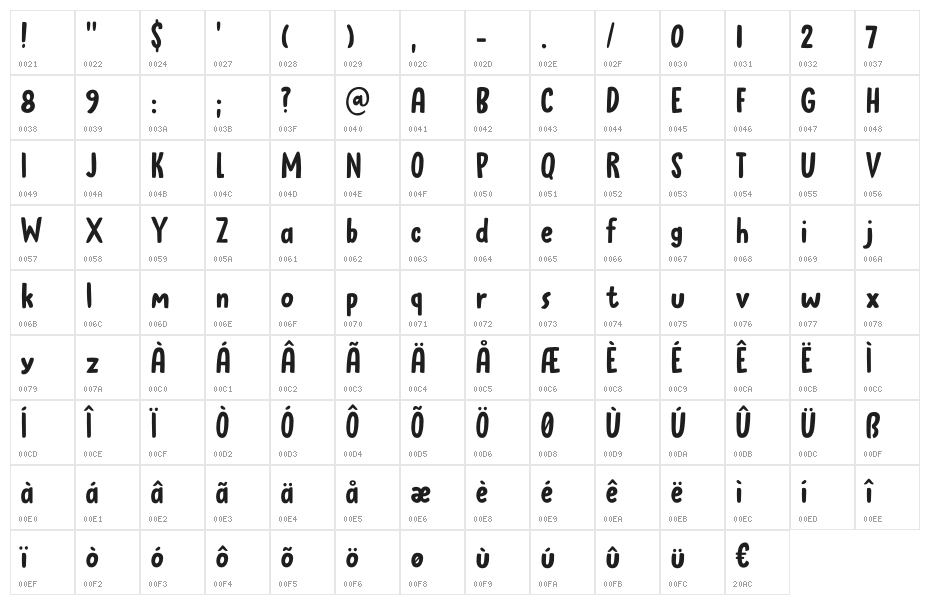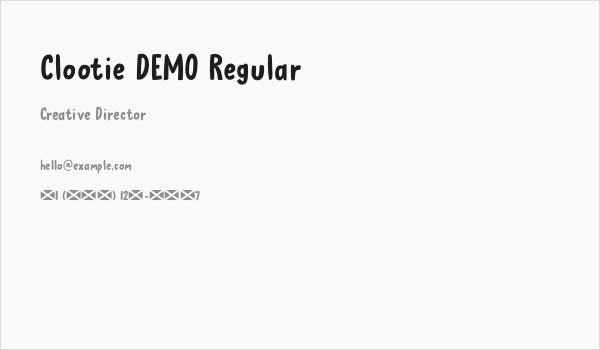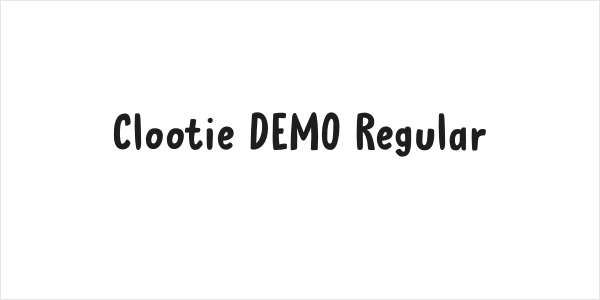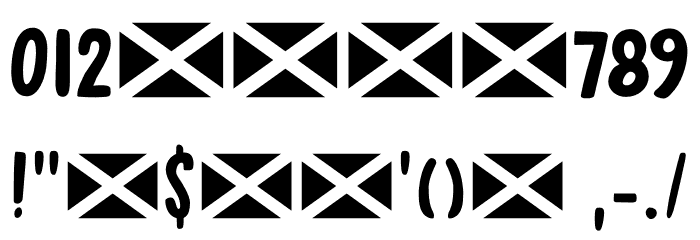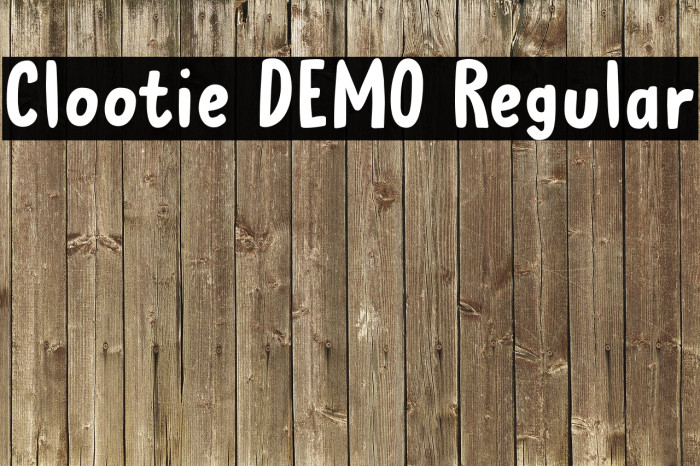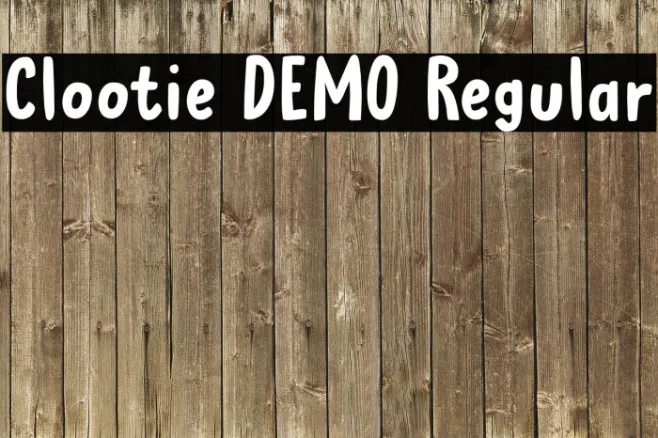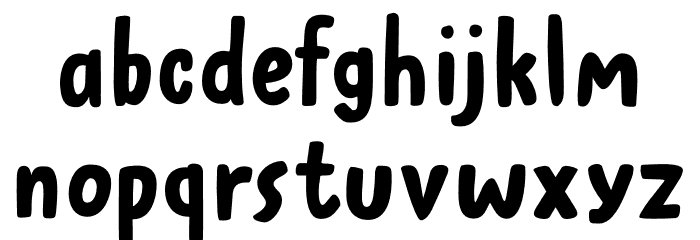
Clootie DEMO Regular Font
This font features a playful and bold design with rounded edges and a hand-drawn feel. The uppercase letters are tall and slightly narrow, while the lowercase letters maintain a consistent height with a whimsical touch. The numbers are bold and match the overall style, providing a cohesive look. Special characters are included, maintaining the same playful aesthetic. This font is perfect for projects that require a fun and approachable vibe, such as children's books, playful branding, or creative posters.
| Proposed Projects | Ideal for children's books, playful branding, creative posters, and informal invitations. |